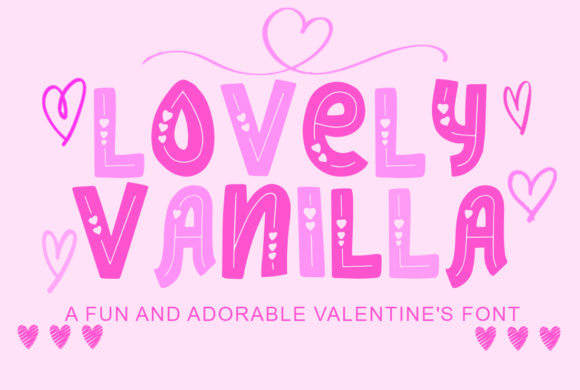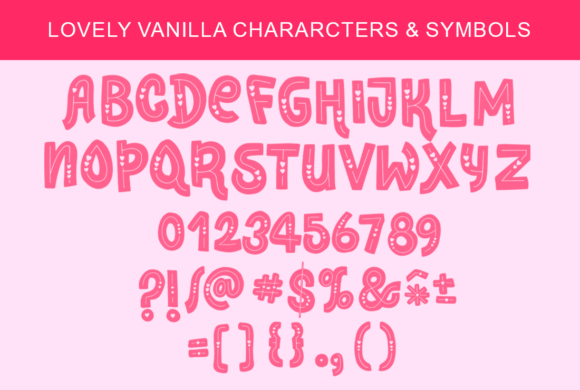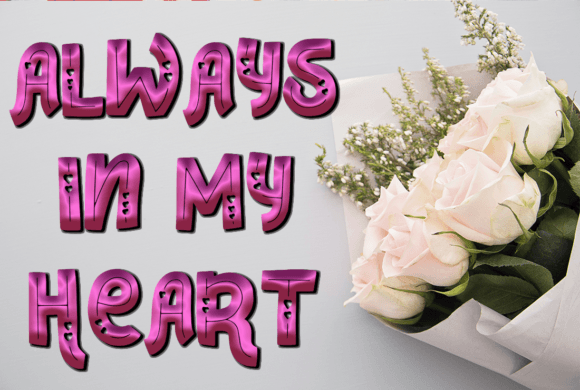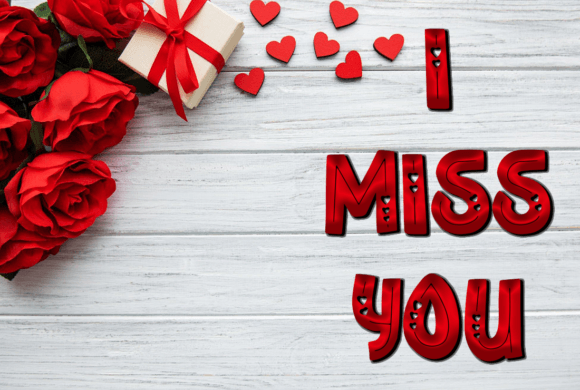
Lovely Vanilla Font: A Cute Decorative Font for Valentine’s Day Designs
About the Lovely Vanilla Font
Elevate your designs with Lovely Vanilla Font, a font that combines sophistication with readability. Lovely Vanilla is a Valentine’s decorative font. It is perfect for romantic cards, designs, and various decorations. Use this font for your designs, and explore its endless possibilities!
Lovely Vanilla’s decorative style is ideal for headlines, short text blocks on invitations or social media graphics, and packaging design where a romantic or playful feel is desired. It excels in applications requiring visual impact, such as logos for boutique businesses or branding for confectionery products. However, its ornate forms are less suitable for body text or user interfaces, where legibility over extended periods is crucial.
This font’s personality is undeniably playful and charming, leaning towards a romantic aesthetic. To balance its delicate curves, consider pairing Lovely Vanilla with a clean sans-serif like Montserrat for a modern contrast, or a classic serif such as Garamond for a more timeless feel. A geometric sans-serif such as Futura would provide a striking juxtaposition, accentuating Lovely Vanilla’s decorative qualities.
Avoid using Lovely Vanilla for lengthy text. For optimal results, restrict its use to areas requiring emphasis and visual appeal.
Lovely Vanilla Font Usage Examples
Lovely Vanilla Font Example